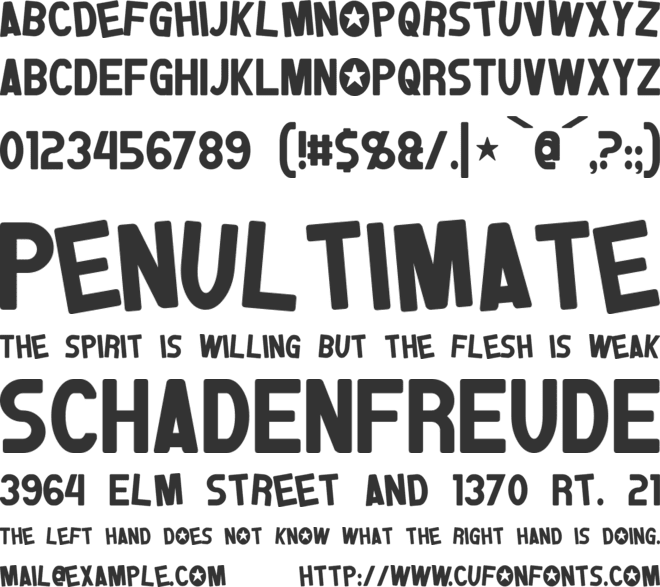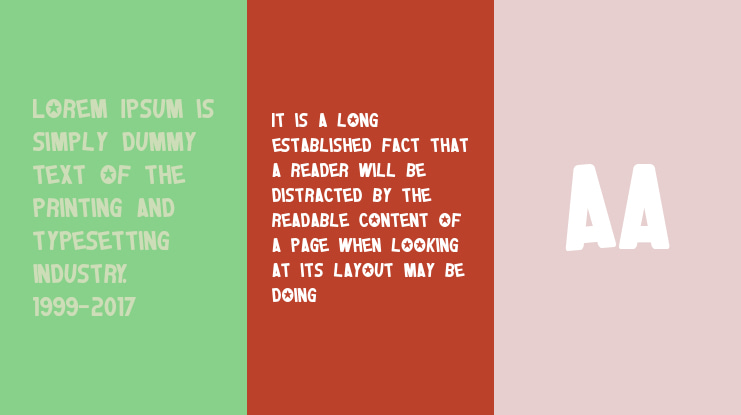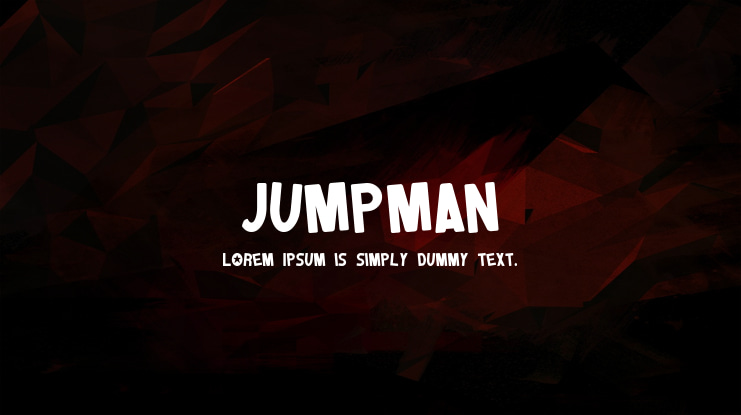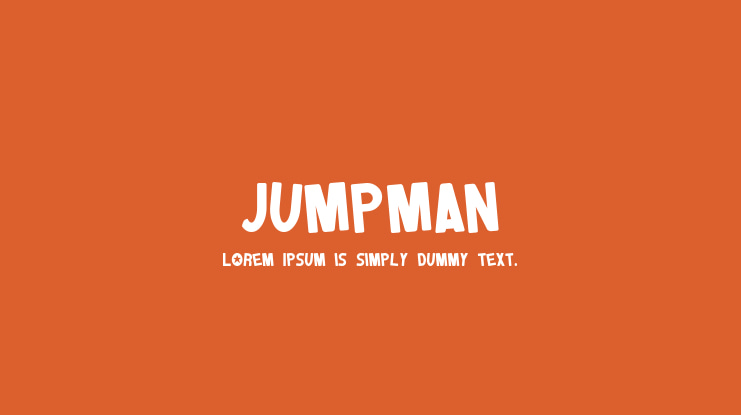
Jumpman Font
Neale Davidson
A simple deco font based on the logo of the original Donkey Kong game from Nintendo Entertainment. Includes full alphabet, extended punctuation, Euro.